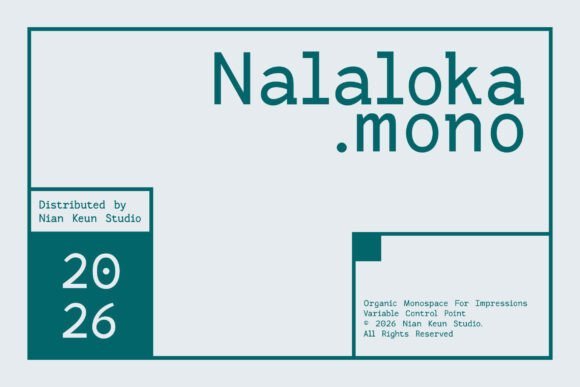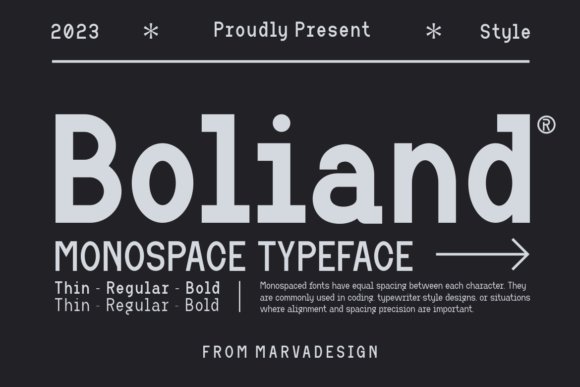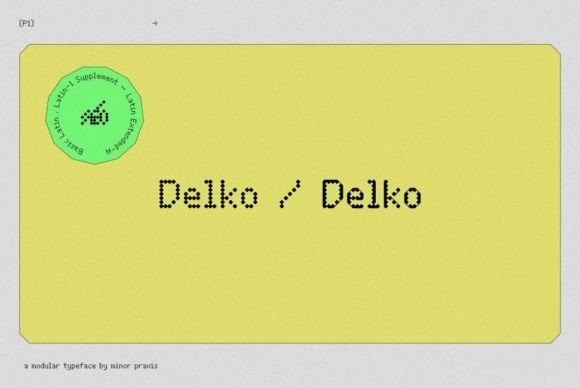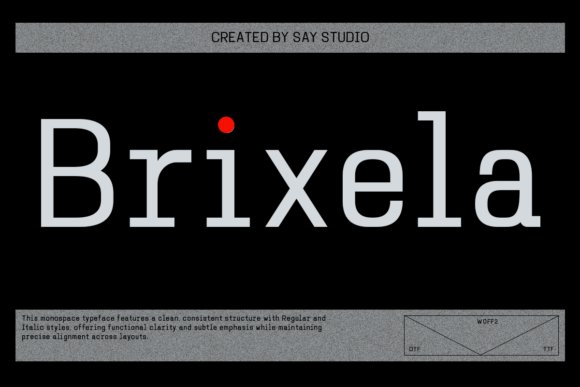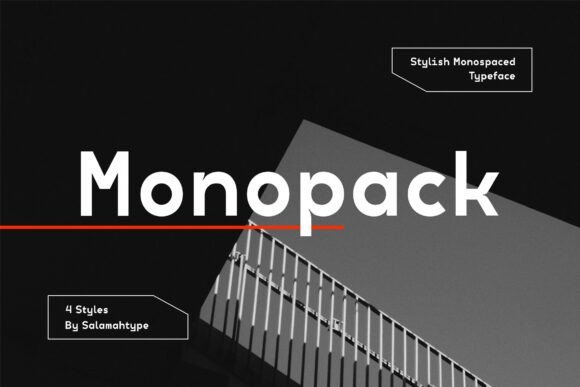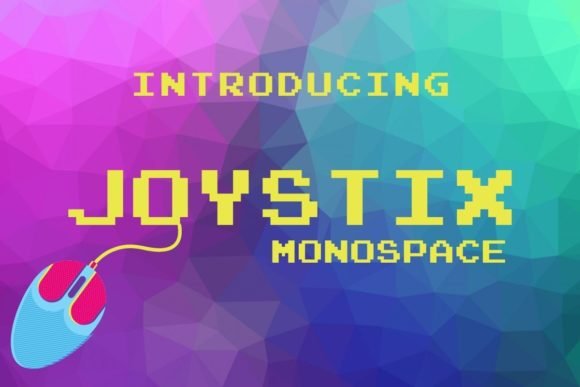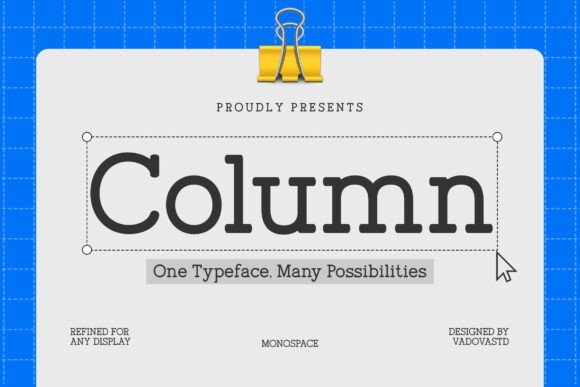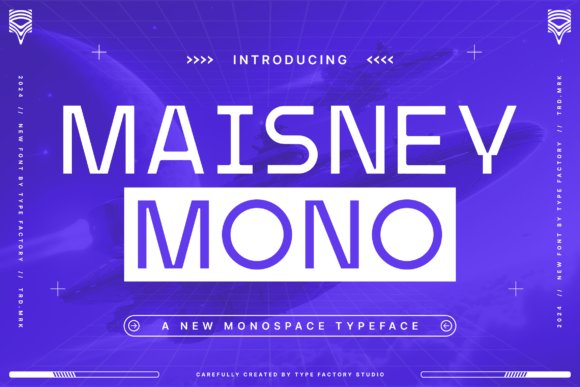
31 Essential Monospace Fonts for Developers and Designers in 2026
In the world of digital typography, monospace fonts play a crucial role by providing uniform character spacing that enhances readability and organization. Whether you’re a developer, designer, or tech enthusiast, choosing the right monospace fonts can significantly impact your projects in 2026. This article presents 31 standout options to elevate your typographic toolkit.
1. Borgen Monospace Font
Borgen Monospace Font
Borgen Monospace is characterized by its straightforward geometric design, delivering a minimalistic and highly legible appearance. Its clean lines and uniform character widths make it an excellent choice for projects that prioritize clarity and precision, especially in contexts like coding, technical documentation, or digital interfaces where monospaced fonts are essential for maintaining alignment.
This typeface’s simplicity does not compromise its aesthetic appeal; rather, it offers a timeless, versatile foundation for designers aiming to create a modern, uncluttered look. Its neutral style ensures it adapts seamlessly across various branding and editorial projects, from user interface design to technical reports, where maintaining consistency in spacing is paramount.
Incorporating Borgen Monospace into your design toolkit grants you a stable, professional tone that enhances readability without distraction. The font’s geometric roots make it perfect for digital environments, especially when presenting data, code snippets, or menu systems that demand uniformity and clarity. Its sleek, unobtrusive profile ensures your content remains front and center, making it ideal for systematic layouts that require a clean visual flow.
My Recommendation: I find Borgen Monospace incredibly useful for technical projects where precision and clarity are critical. Its minimalist geometric structure lends itself well to coding environments, dashboards, and data visualization, making information easy to scan and interpret. It’s a subtle yet effective choice whenever a no-nonsense, contemporary monospace font is needed.
2. Nalaloka Mono Monospace Font
Nalaloka Mono Monospace Font
Nalaloka Mono is a standout among modern monospace fonts, bringing together technical precision with an inviting, organic aesthetic. Its expressive character set balances clean, consistent spacing with subtle handcrafted details, resulting in a typeface that feels both systematically engineered and inherently human. This makes it exceptionally versatile for projects that require a contemporary edge with a touch of personality.
Designed to work across wide-ranging applications—from editorial layouts and branding systems to digital interfaces—Nalaloka Mono excels at maintaining readability while adding unique visual interest. Whether used for editorial design, posters, or UI/UX elements, its modern yet approachable style delivers a fresh take on traditional monospace conventions. The font’s balanced proportions and subtle organic nuances allow for a dynamic visual presence without sacrificing functional clarity.
In practice, Nalaloka Mono can elevate the aesthetic of tech startups, creative agencies, or publication layouts that aim to combine a systematic structure with an approachable feel. It performs especially well on digital screens where clarity and personality are equally valued, making it an ideal choice for coding-style layouts, conceptual typography, or branding projects that benefit from a methodical yet warm tone.
My Recommendation: Nalaloka Mono has become my go-to for projects that need a modern monospace font with a human touch. Its combination of technical precision and organic detail makes it perfect for editorial layouts, branding, and digital interfaces that require both structure and personality. I love using it in creative environments where visual warmth enhances functional clarity.
3. Boliand Font
Boliand Font
Boliand stands out as a modern monospace typeface with a versatile, contemporary flair. Its balanced proportions and clean design make it suitable for a variety of creative projects—ranging from invitations and product packaging to logos and watermarks. The font’s consistent spacing and approachable appearance lend themselves well to branding exercises that need a professional yet friendly tone.
One of Boliand’s key strengths is its adaptability across different mediums, whether in printed materials, digital branding, or craft-oriented layouts. Its streamlined form makes it an excellent choice for projects that demand clear communication, such as labels, product descriptions, and social media graphics. Using a monospace font like Boliand elevates the visual impact of designs that aim for a modern, cohesive aesthetic with balanced readability.
For designers working on product branding, packing materials, or creative watermarks, Boliand offers a practical yet stylish solution. Its contemporary look ensures that your message remains accessible at a glance, while its distinct character gives your project an individualistic edge. It’s especially effective for hybrid projects that blend traditional craftsmanship with modern digital presentation.
Selecting the right monospace fonts can improve the clarity, aesthetic, and professionalism of your digital content. With this curated list of 31 options for 2026, you’ll find the perfect monospace fonts to suit your coding, design, or presentation needs, ensuring your projects stand out with both style and functionality.